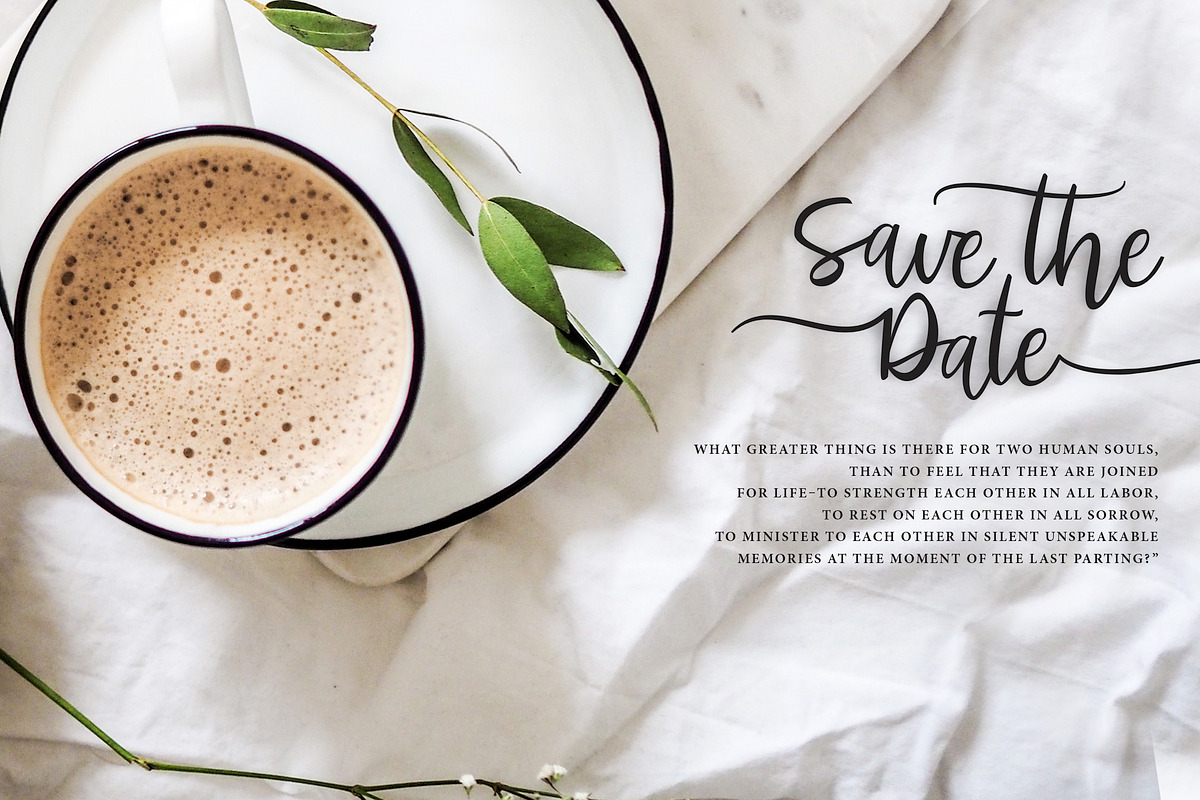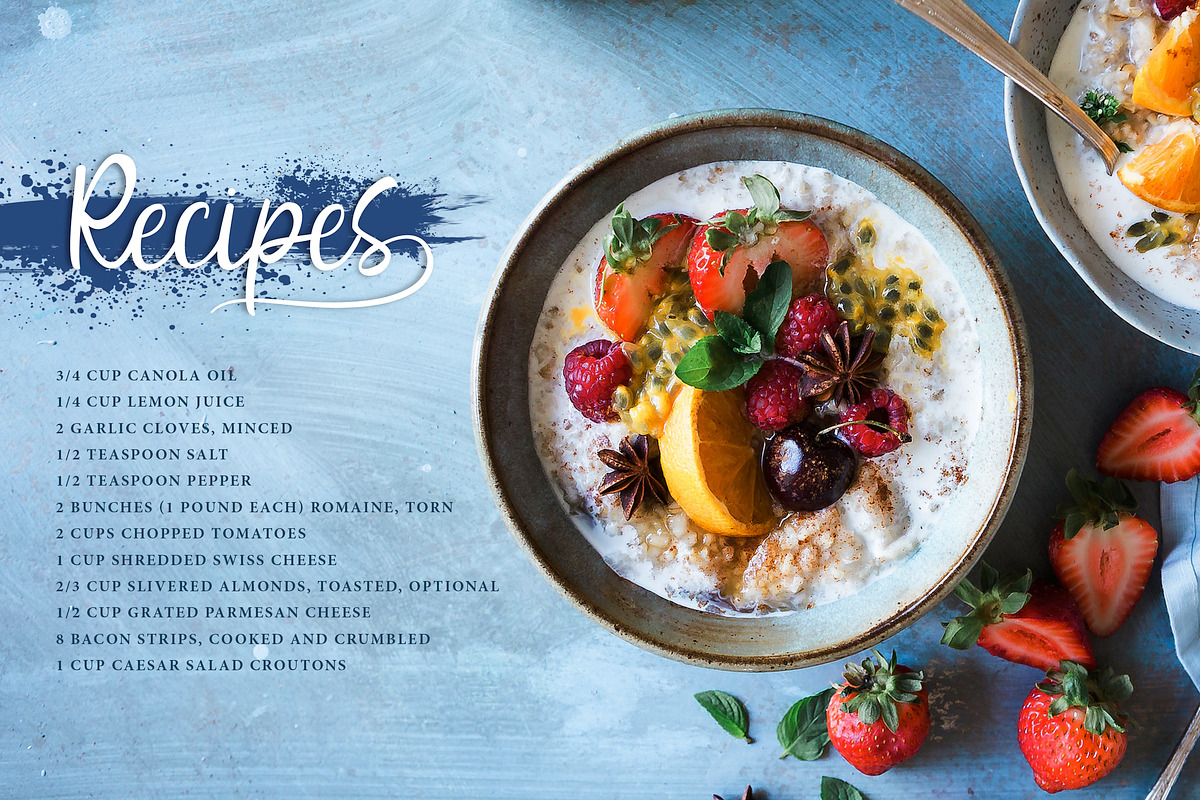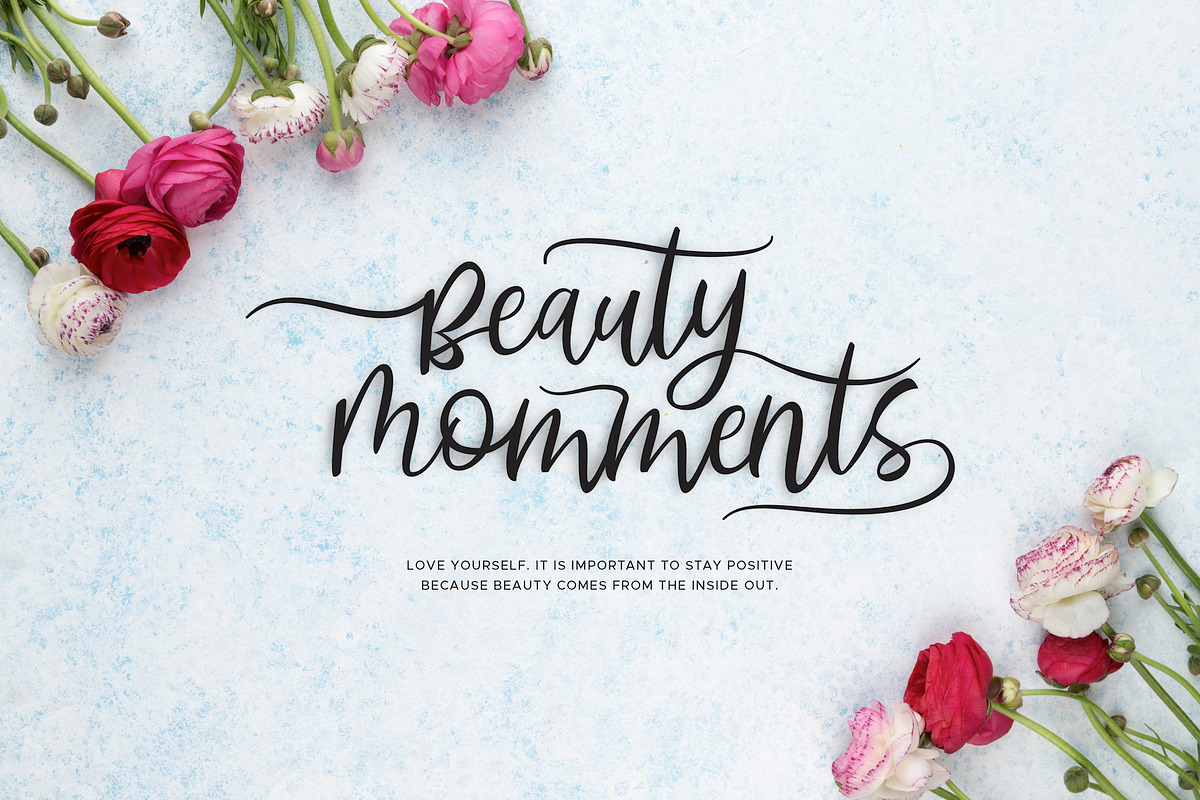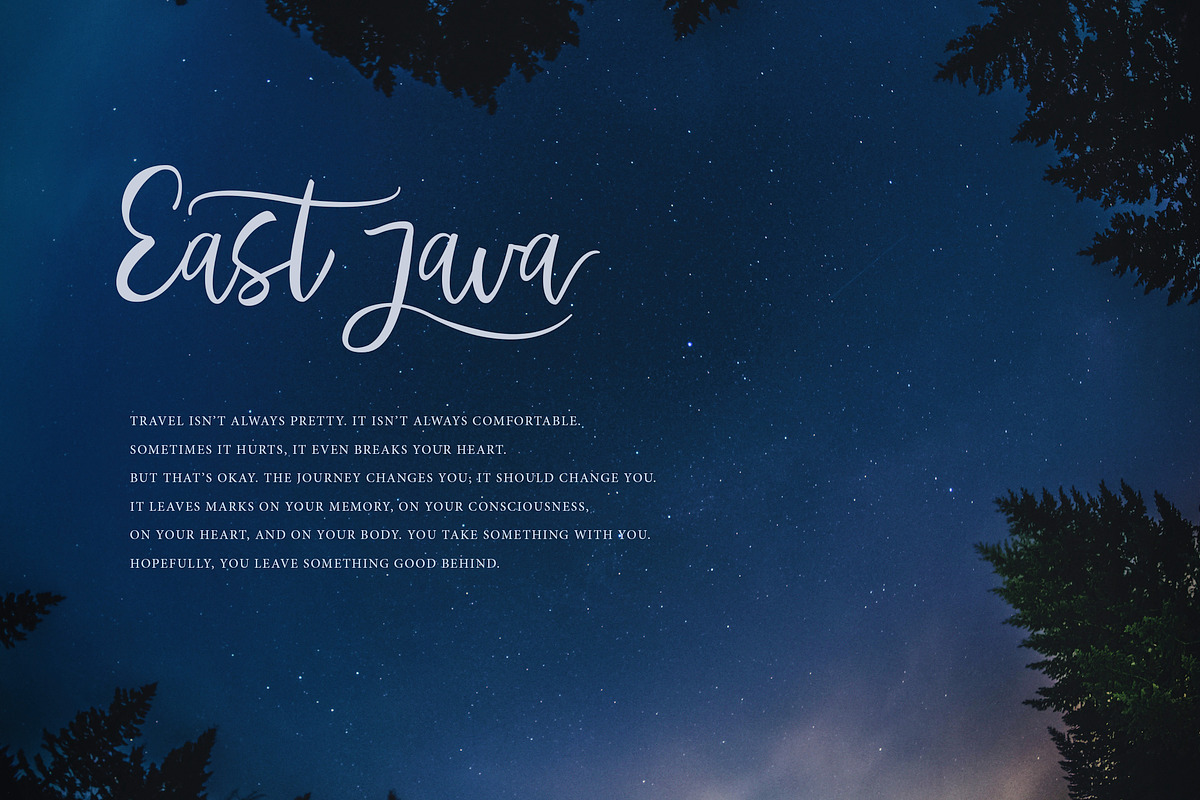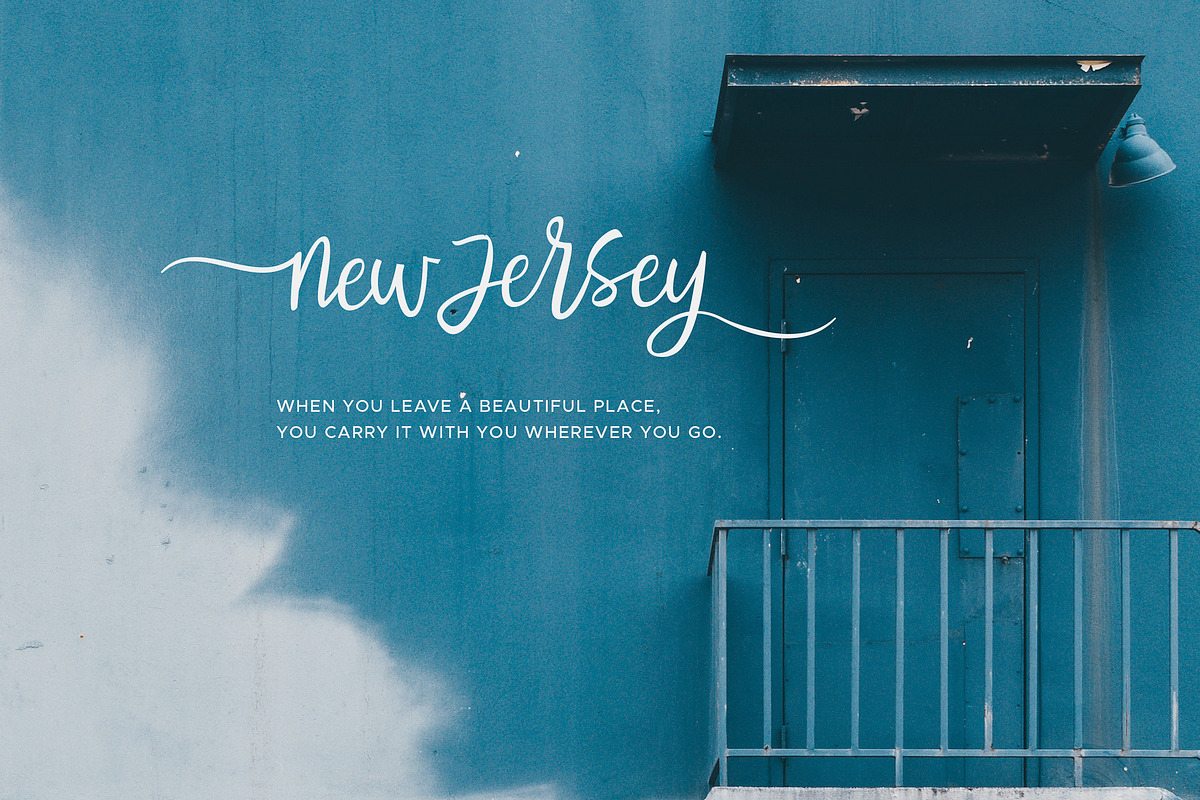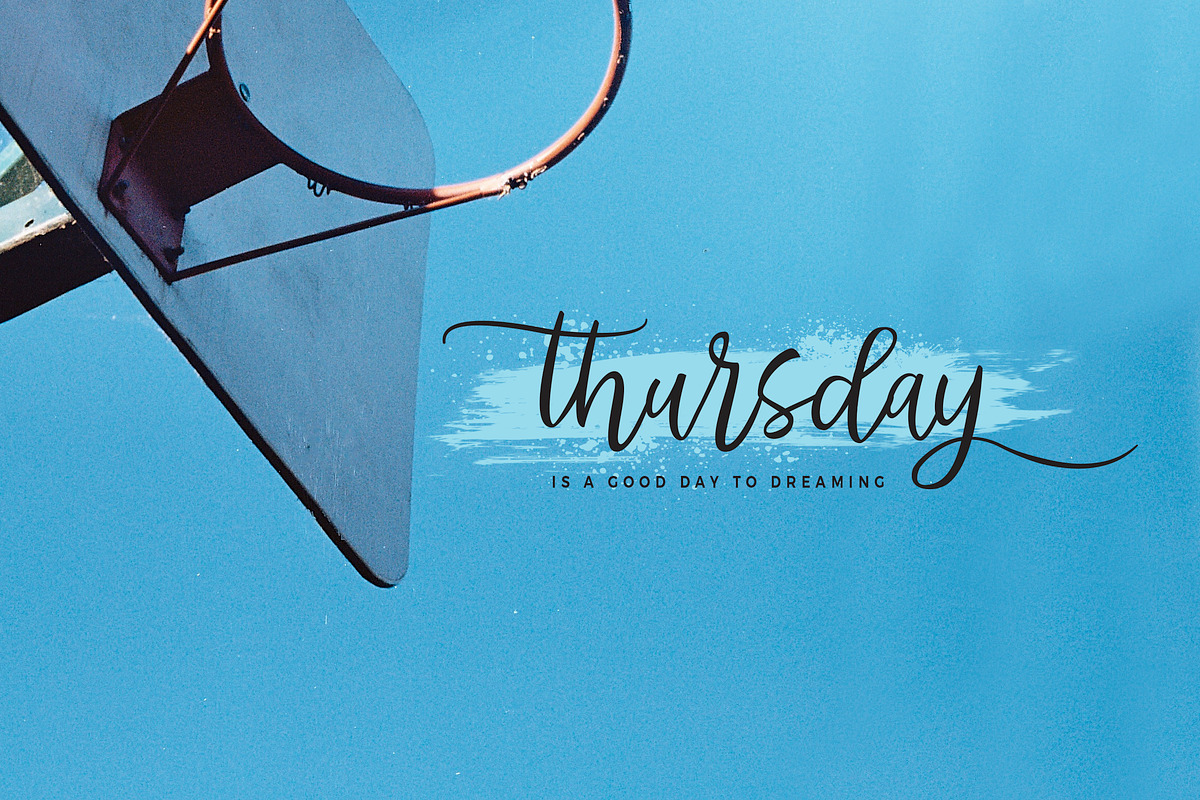
Abhyaksa Handwritten Font
"Abhyaksa" is a font display that is made by hand, inspired by classic posters.
comes with uppercase, lowercase, numerals, punctuations and so many variations on each character include OpenType alternates, common ligatures and also additional swash to let you customize your designs. Perfect to use for Logotype, Letterhead, Poster, Apparel Design, Label and etc.
Abhyaksa Handwritten Font by Inspiratype fits naturally into Branding, posters, packaging, typography.